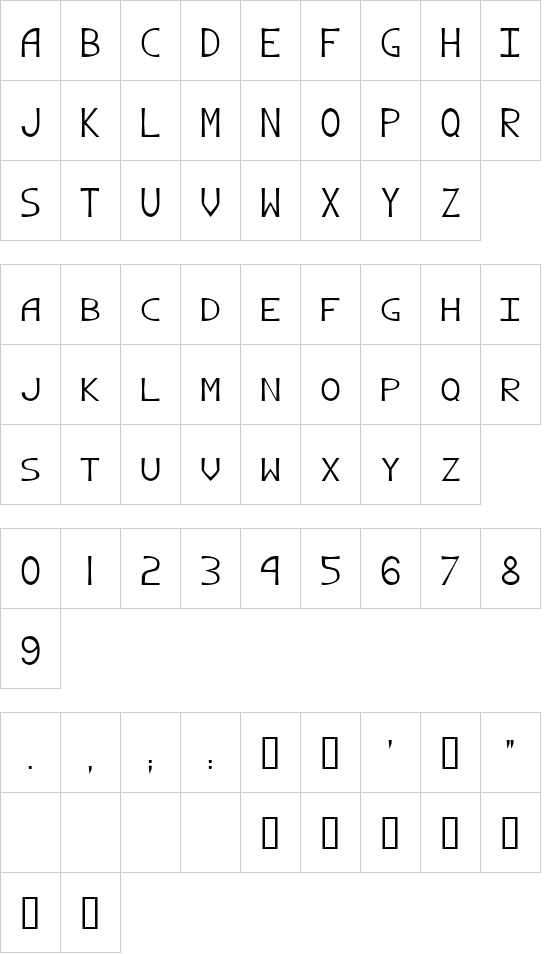
Angelusª
Angelus is a balanced, everyday typeface with even proportions and a calm, readable character. The letterforms are unfussy and well spaced, with consistent strokes and open shapes that hold up at smaller sizes. Its neutral, almost invisible personality makes it feel dependable rather than decorative, the kind of type that quietly does its job without drawing attention to itself.